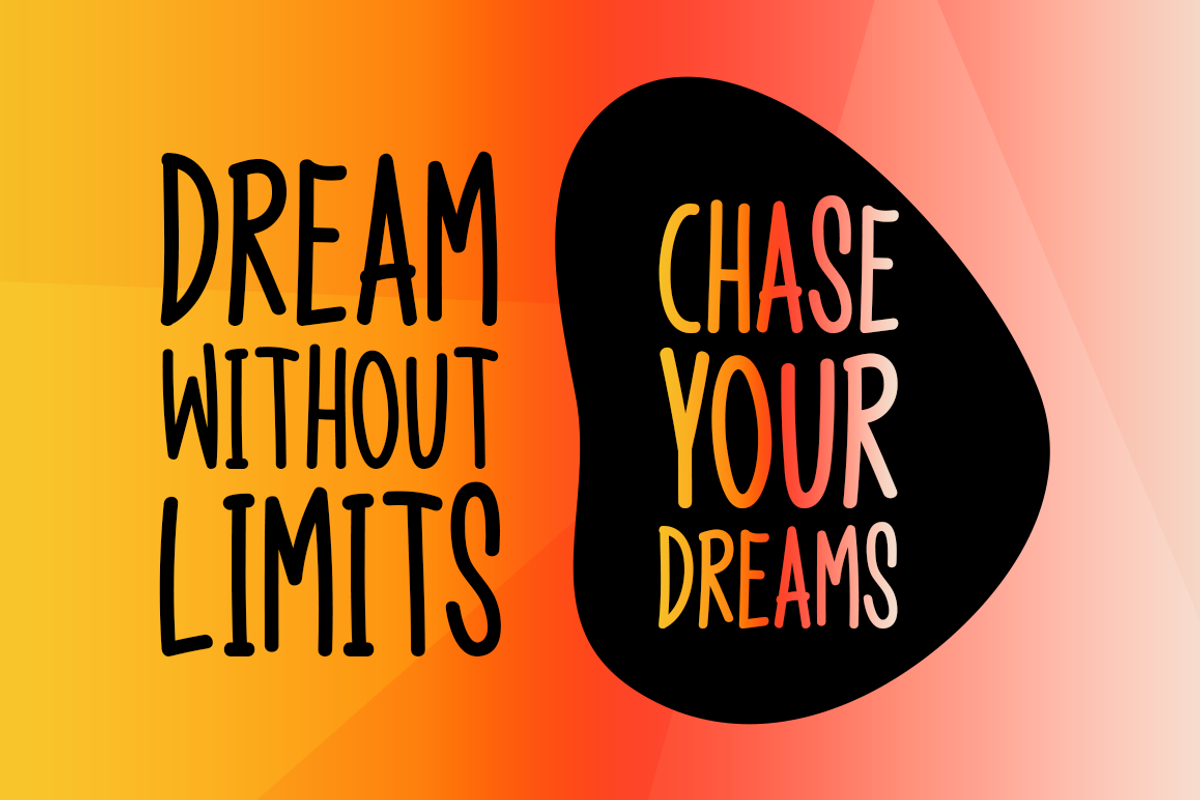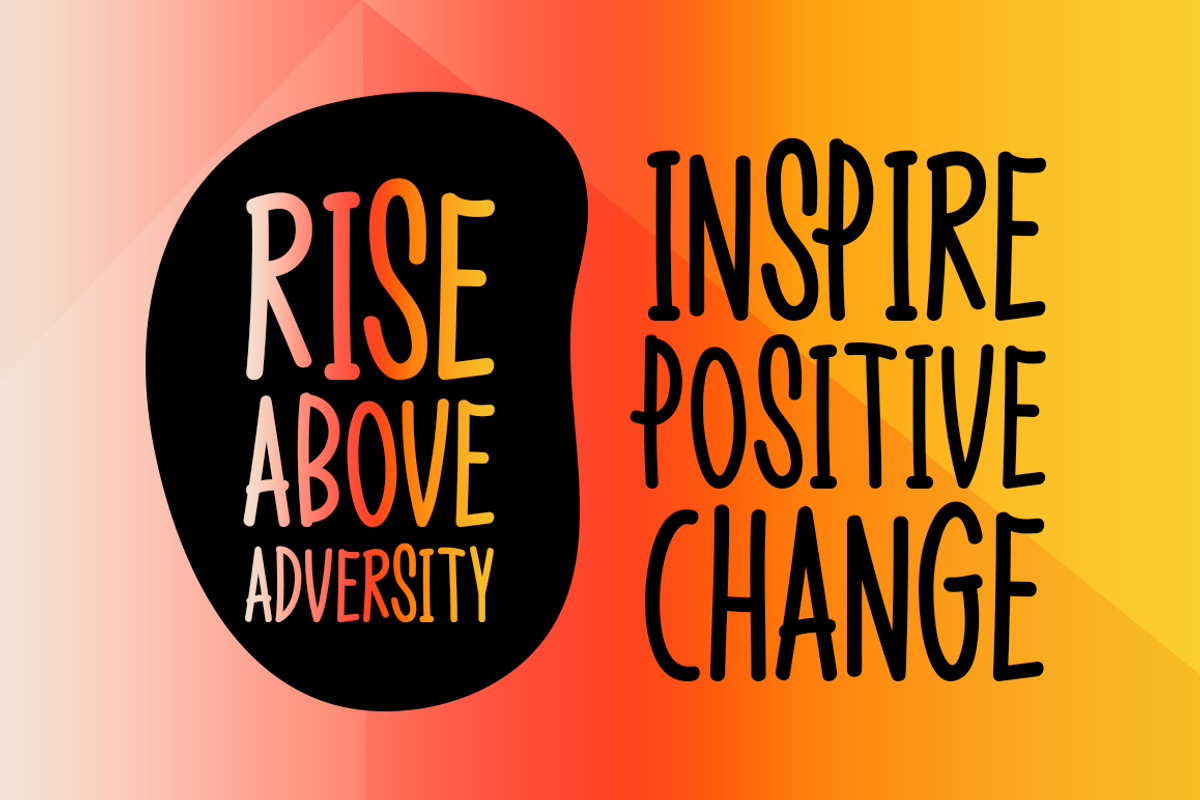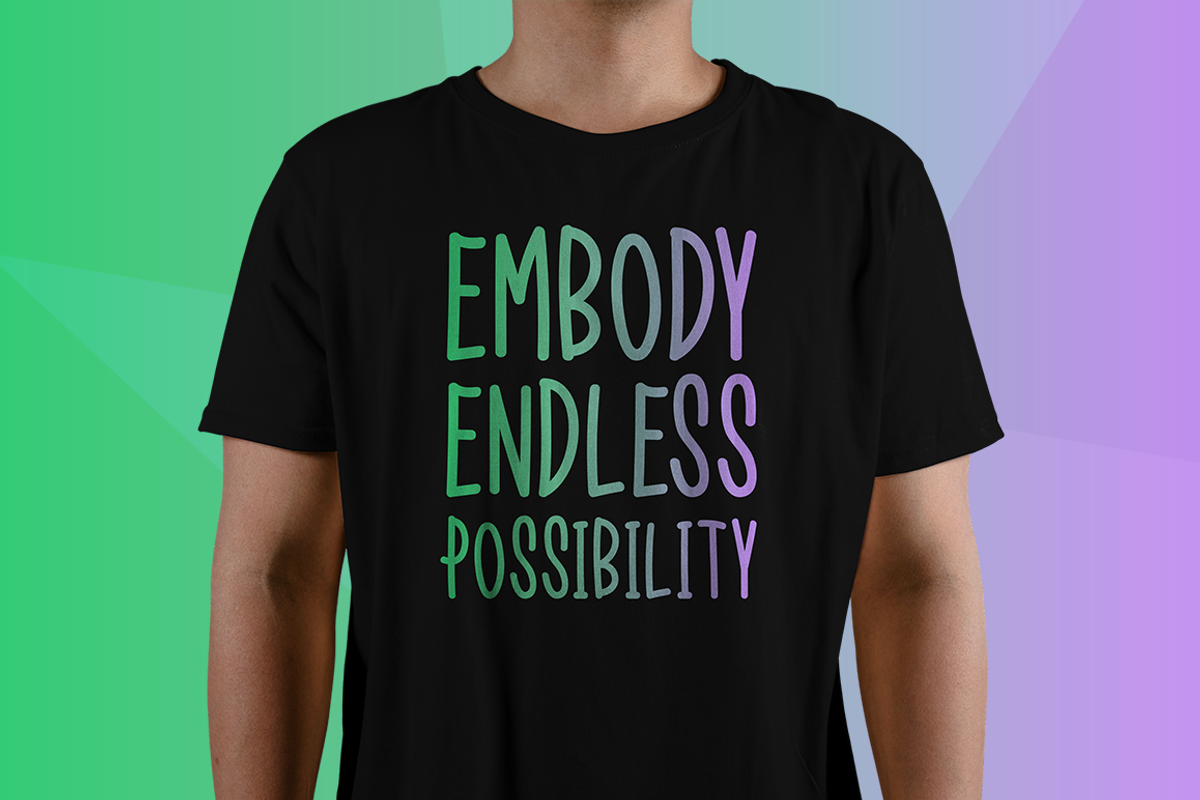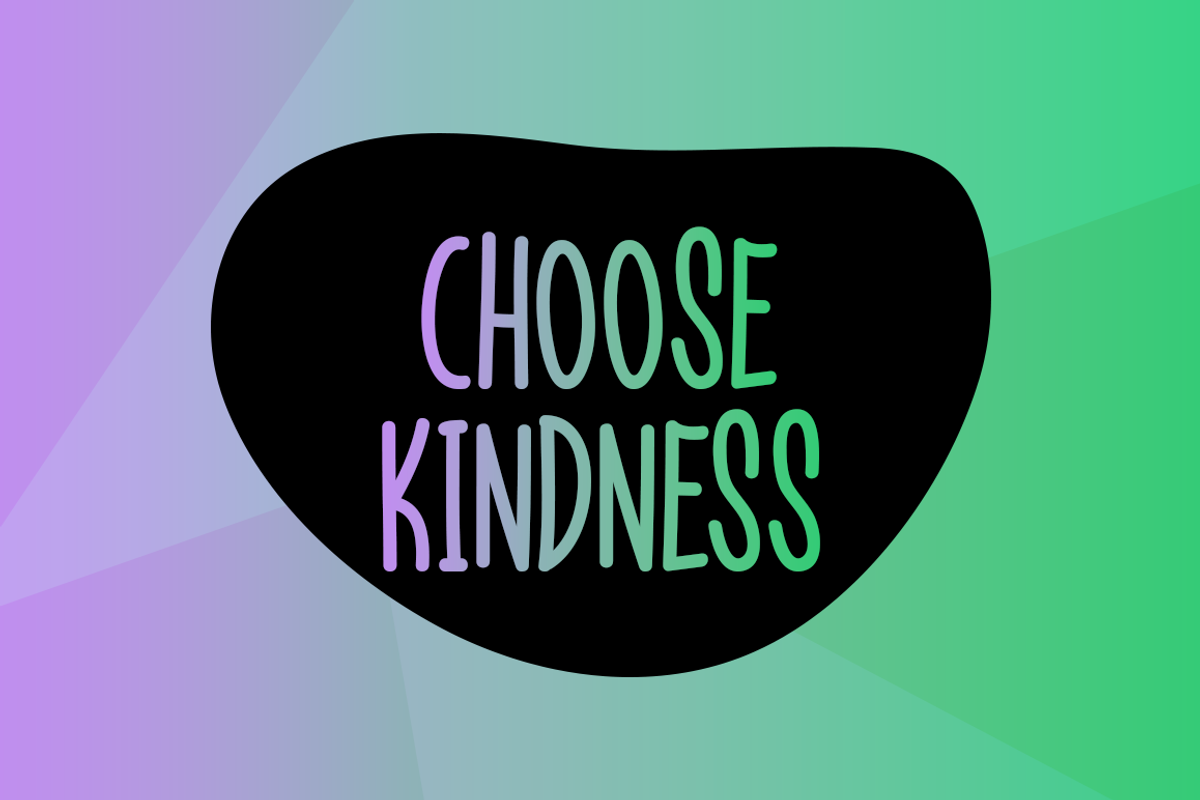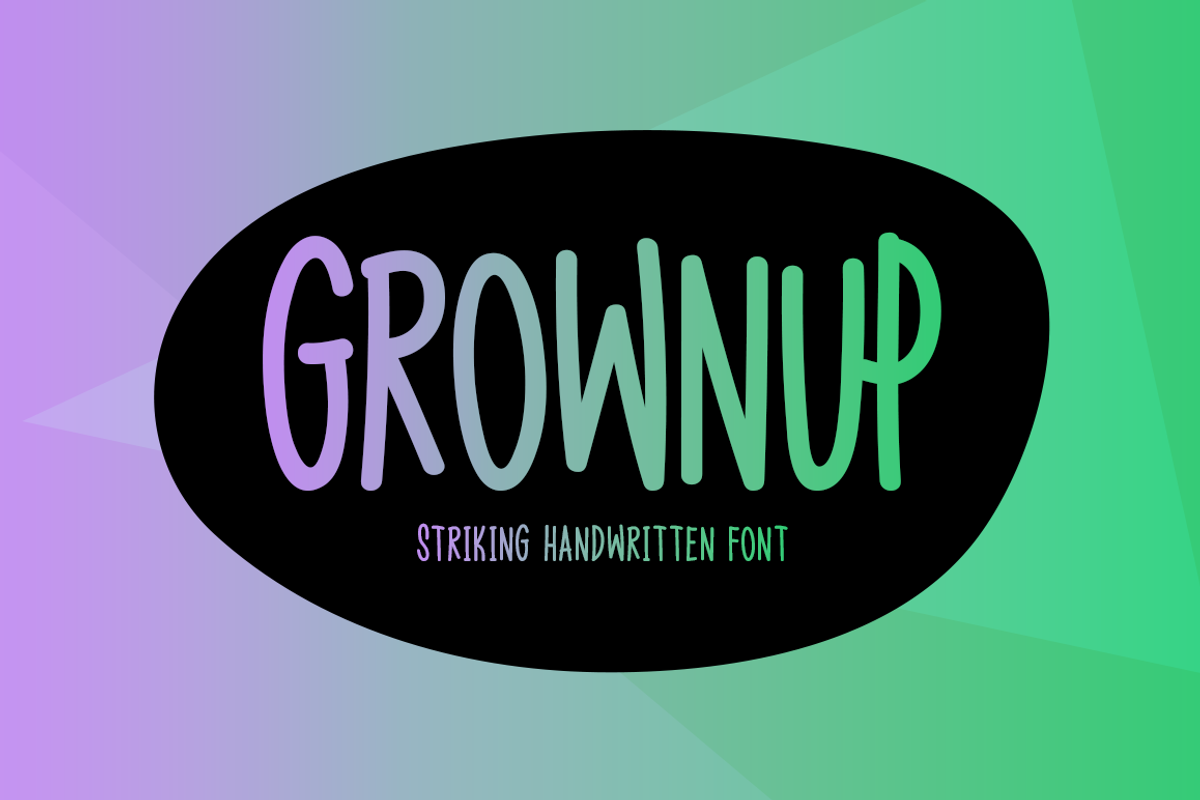
Grownup Typeface
Grownup is an elegant and expressive handwritten font with a unique and whimsical style that gives any design a distinctive touch. From individualized stationery and logo designs to t-shirts, posters, and print materials, its flowing strokes and distinct charm make it ideal for various artistic endeavors. Grownup adds warmth and sincerity to any design, whether you're creating music album covers, social media visuals, or invitations.